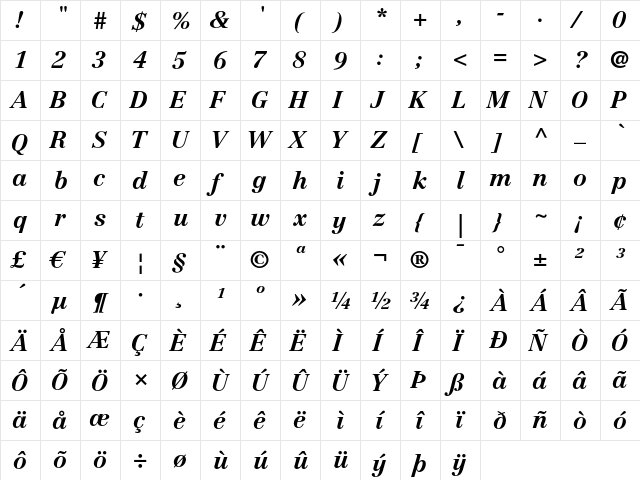
Linotype Centennial LT 76 Bold Italic
Design Context for Linotype Centennial LT Typeface
Linotype Centennial LT is a composed and adaptable typeface that performs quietly and consistently across a wide range of design contexts. The dynamic lean of this cut emphasises speed and emphasis in any layout. Its bold stroke weight gives it real presence on the page.
Pro Tip: Use Linotype Centennial LT for emphasis, pull quotes, and subheadings where its slanted energy can add rhythm to the layout.